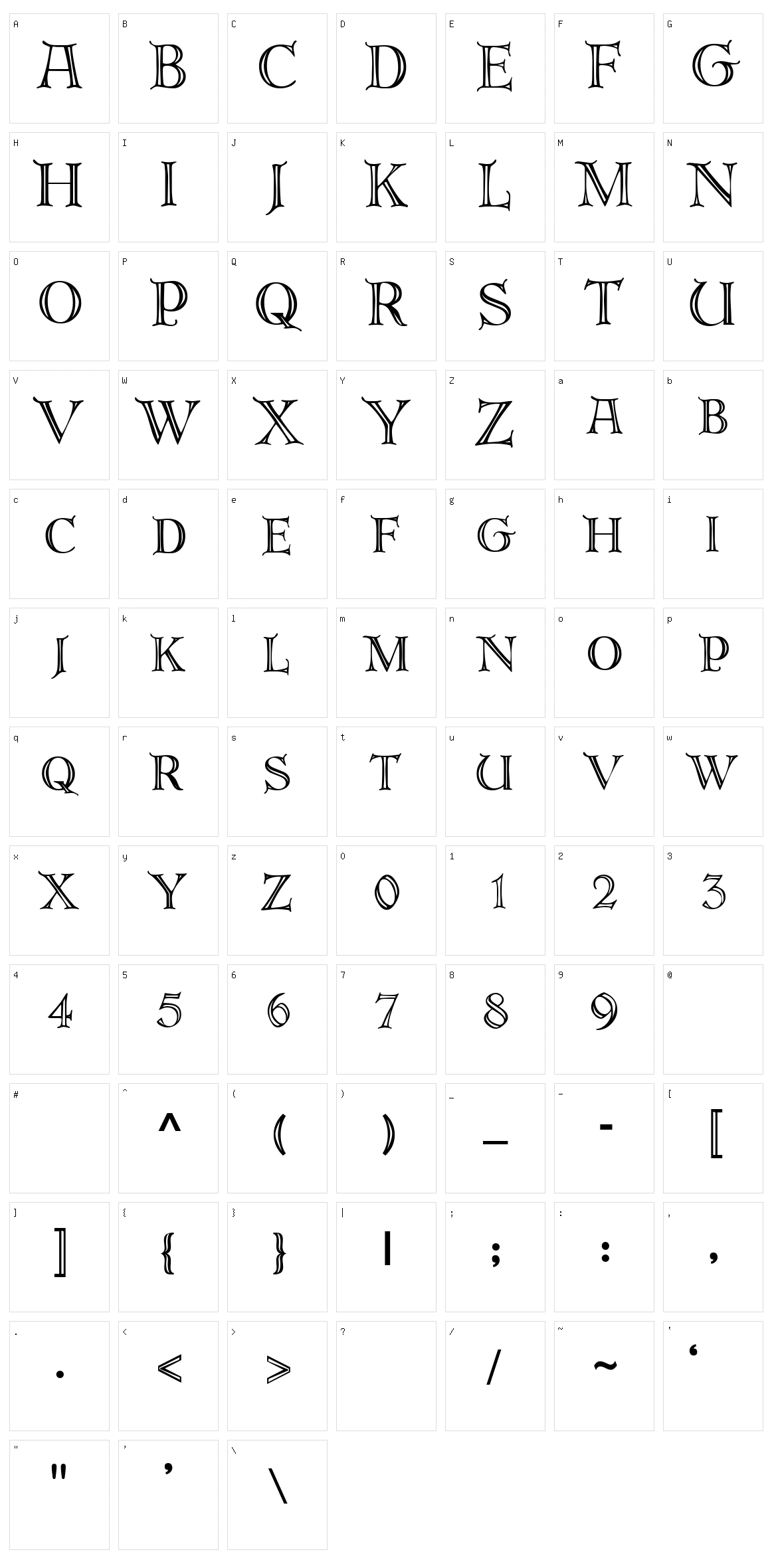
DeRoos Caps
Designed by: Dave Fabik
DeRoosCaps - Moving along in my mastery of "drawing" programs and my Type construction education. Also done in 1992. Original image scanned from a Dover Clipart Type book. Upper Case & Lower Case are "scaled" versions of each other. Contains US English punctuation and all US Eng alphanumeric characters along with a few "alternate" letterforms placed in ASCII 0161-0166.